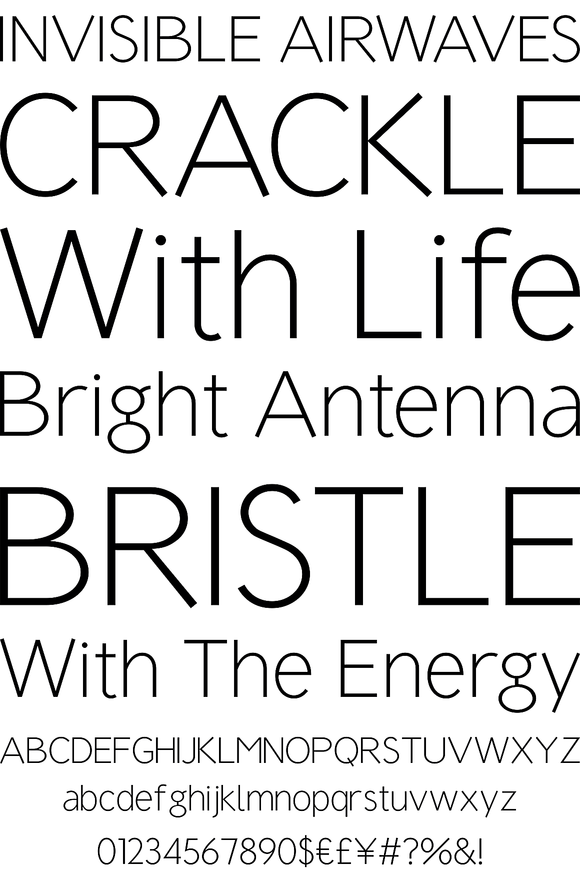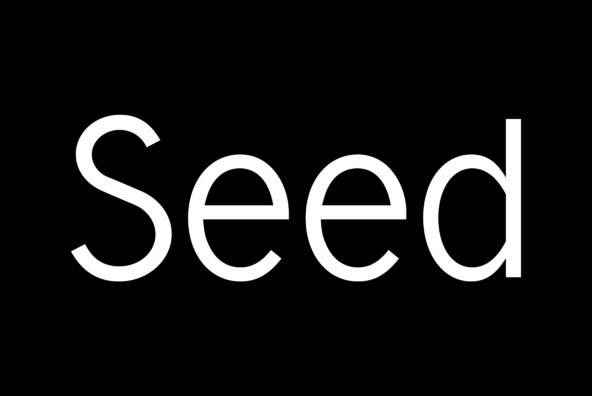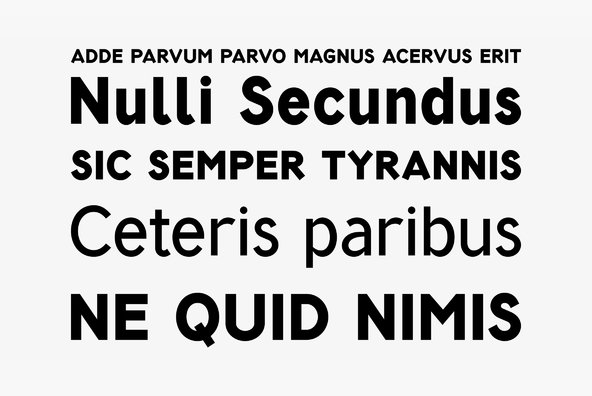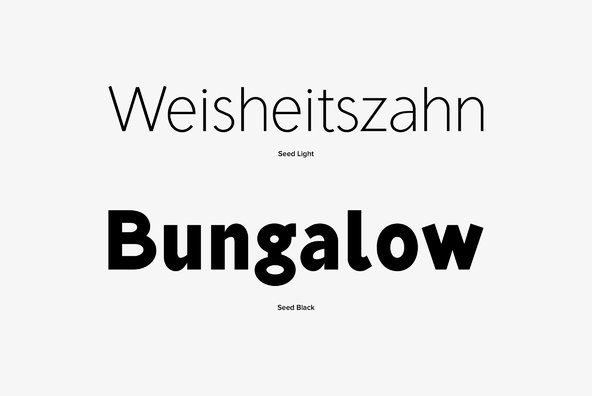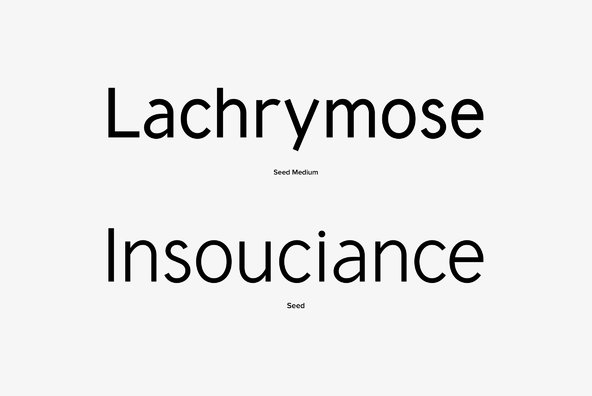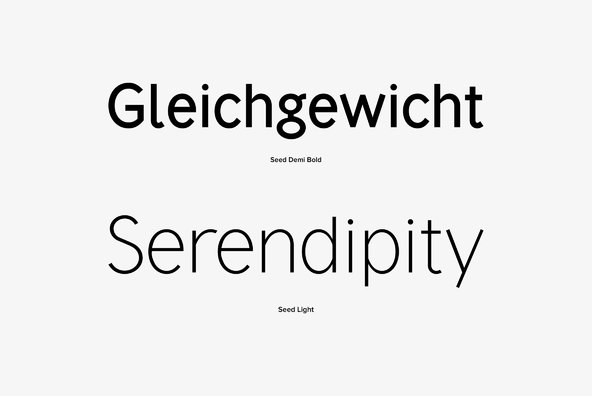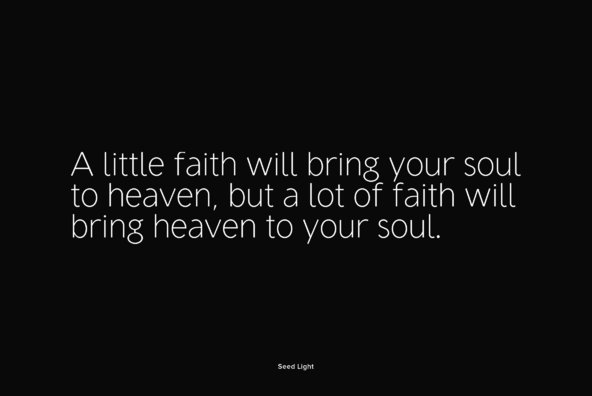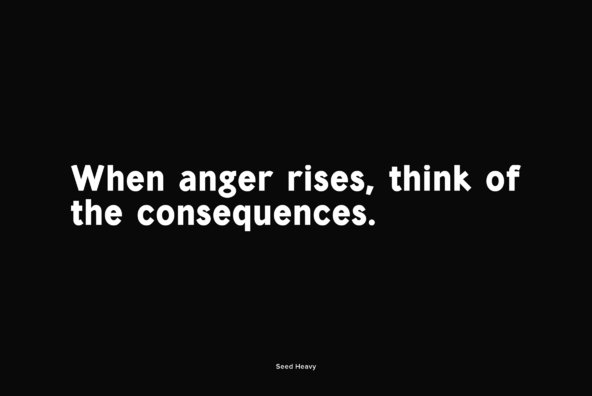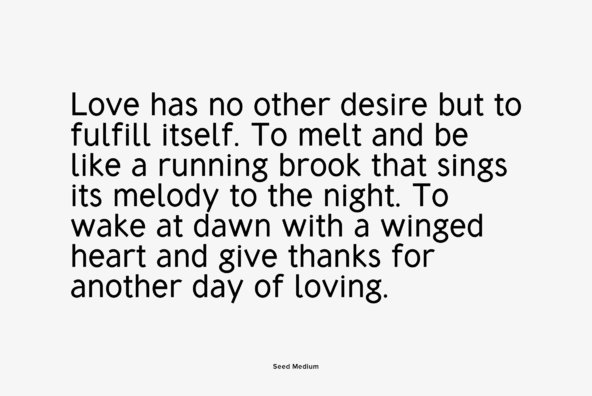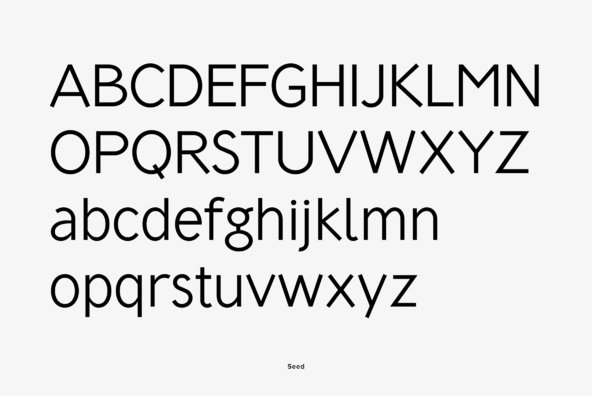
Drawn by Hajime Kawakami in 2005, Seed is a linear sans-serif that works great in both content and headline usage. It works best in conservative projects that are looking for a slight quirk to the type layout.